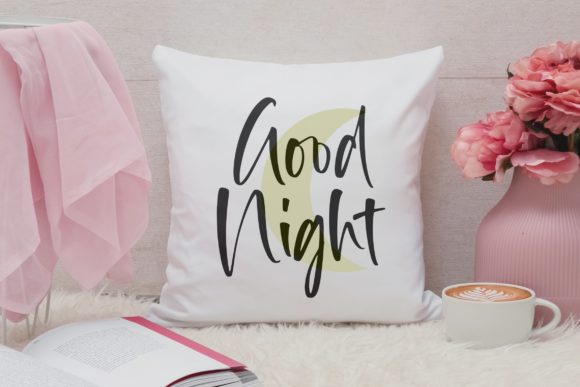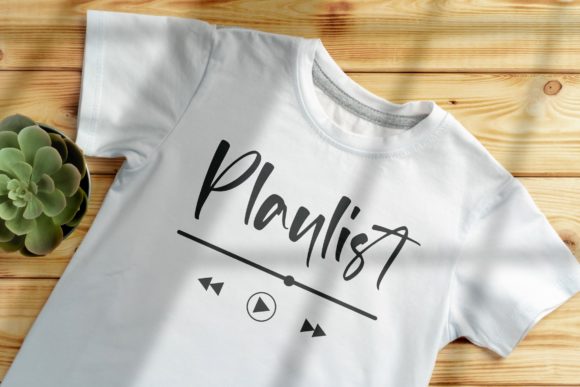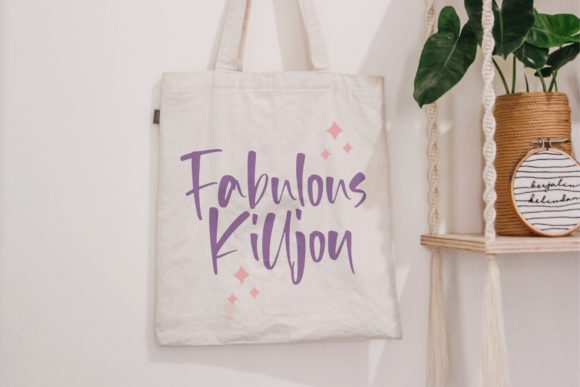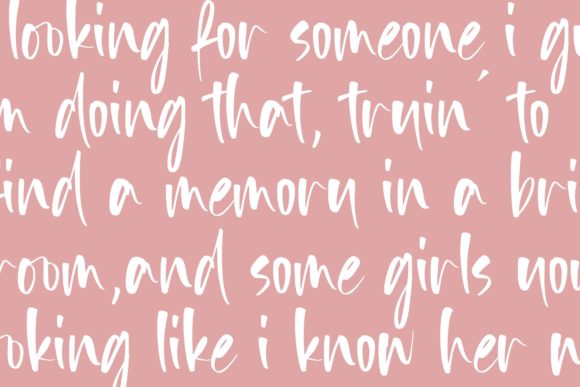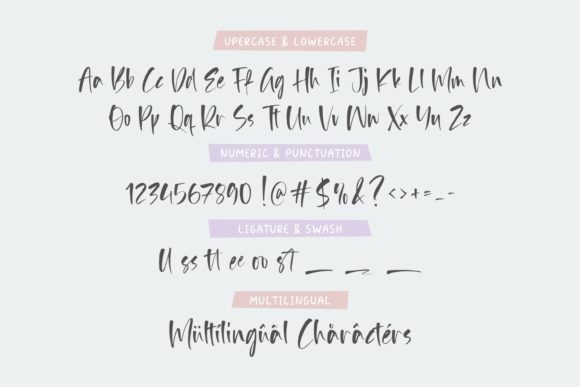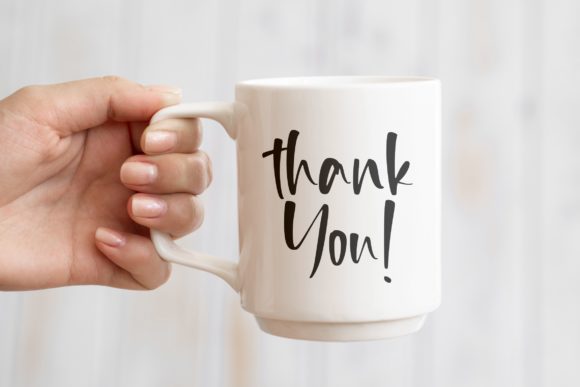
Introduction to Goliath Soldier Font
As a designer, there’s nothing quite like the thrill of bringing a creative project to life. The moment when a blank canvas transforms into a beautiful, high-quality design is pure magic. But sometimes, the perfect font can make all the difference. That’s where the Goliath Soldier Font comes in – a stylish and elegant design resource that’s sure to elevate any project.
Imagine you’re working on a wedding invitation, and you need a font that exudes charm and sophistication. Or perhaps you’re creating a logo for a new business, and you want a font that’s both modern and timeless. The Goliath Soldier Font is the perfect solution, with its transparent background and customizable swashes making it a versatile design resource that’s sure to impress.
Key Features of Goliath Soldier Font
- High-quality font design ideal for creative projects, including posters, flyers, and brochures.
- Features a transparent background, allowing for seamless integration with any design resource.
- Unique, bold, and modern design aesthetic, perfect for adding a touch of sophistication to any creative project.
Honest Review: Goliath Soldier Font
I recently had the chance to work with the Goliath Soldier Font, and I must say it’s been an interesting experience. The font has a lot of potential for creative projects, especially those that require a bold and edgy look.
What works well is the high quality of the font, it’s well-designed and looks great even at large sizes. The transparent background is also a nice touch, making it easy to work with in any design context. The font is also a great design resource for those who want to add a bit of grit to their project.
- ⚠️ The font may not be suitable for projects that require a more refined or elegant look, as it can come across as a bit rough around the edges.
- ⚠️ The font also lacks a lot of character variations, which can make it feel a bit limited in terms of customization options.
Overall, I’d say the Goliath Soldier Font is a solid choice for designers who want to add a bit of edge to their project. While it may not be perfect, it’s definitely worth considering as a design resource.
Getting the Most Out of the Goliath Soldier Font
For optimal results, use the Goliath Soldier Font in combination with other high-quality design elements. Experiment with different font sizes and styles to create a visually appealing design. This font is perfect for creative projects that require a bold and eye-catching font.
The Goliath Soldier Font is commonly used in graphic design, branding, and digital marketing projects. Its unique design and high quality make it a popular choice for designers and creatives. Whether you’re working on a logo, poster, or social media graphic, this font is a valuable design resource.